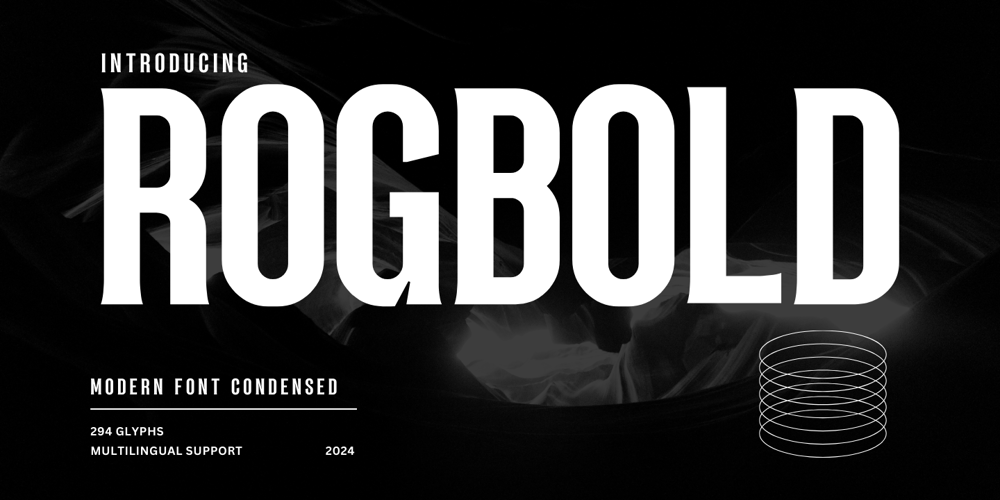
Rogbold Font Family was designed by Muhamad Yusron Billah and published by Sronstudio. Rogbold contains 1 styles and family package options. Introducing “Rogbold,” a modern condensed font that combines sleekness with versatility. With its clean lines and compact design, this font is perfect for creating bold statements in various design projects. Whether for headlines, posters, or branding materials, “Rogbold” commands attention with its contemporary aesthetic and condensed form. Elevate your designs with the modern edge and efficiency of “Rogbold” for a standout typographic impact.Features:- Numeral & Punctuation- PUA Encoded- Multilingual support- Simple Installation- Work both on Mac and WindowsThank you very much 🙂